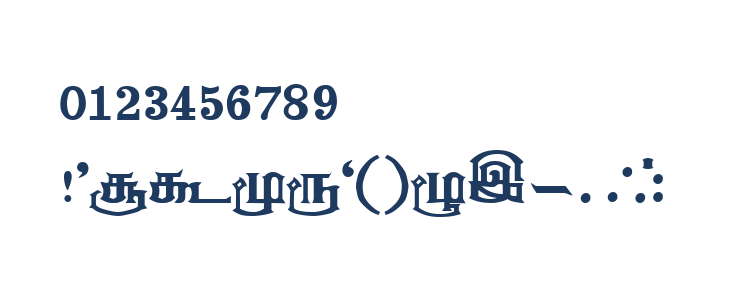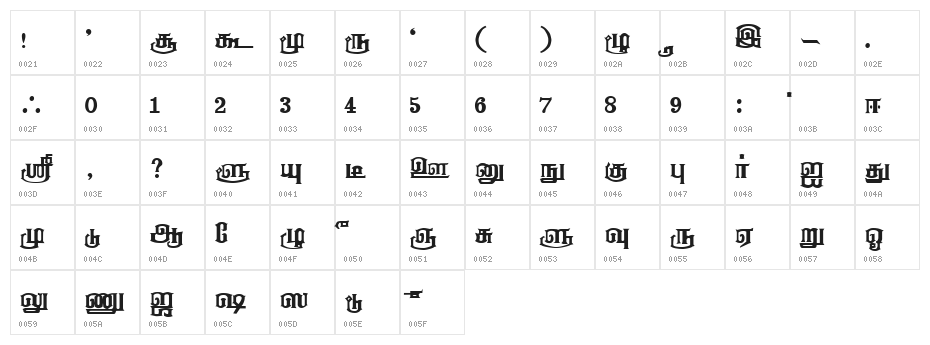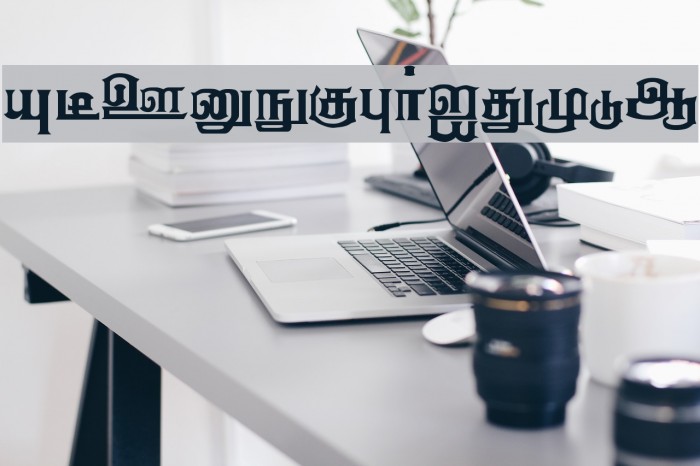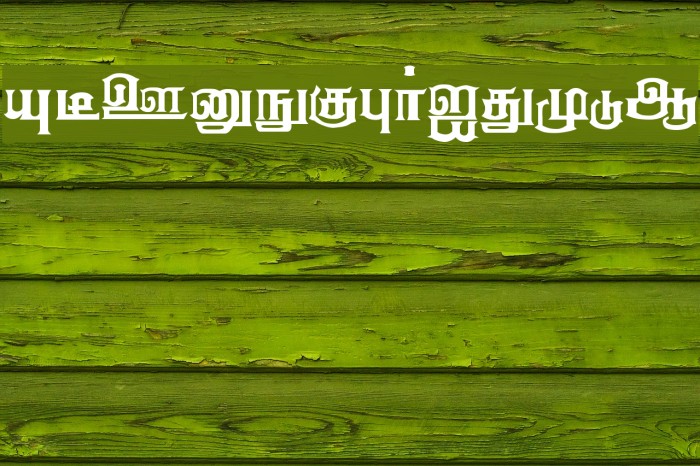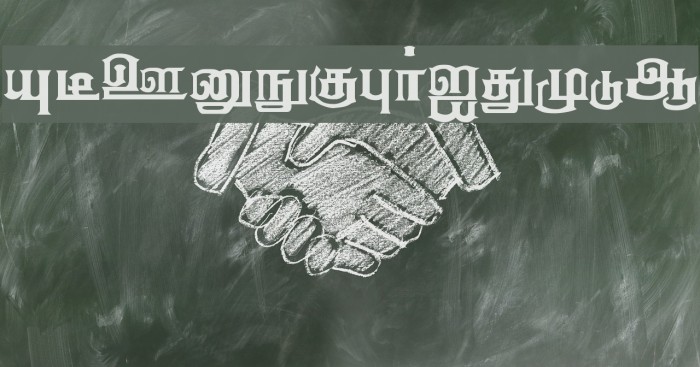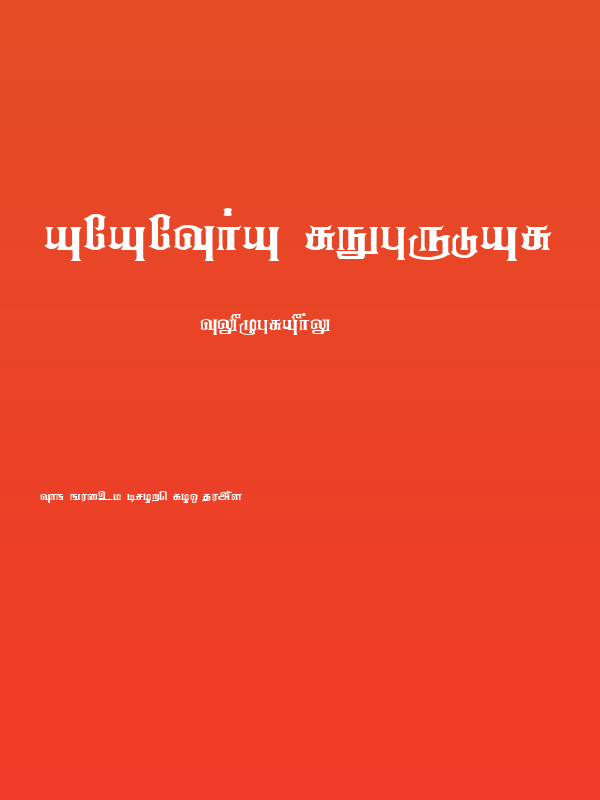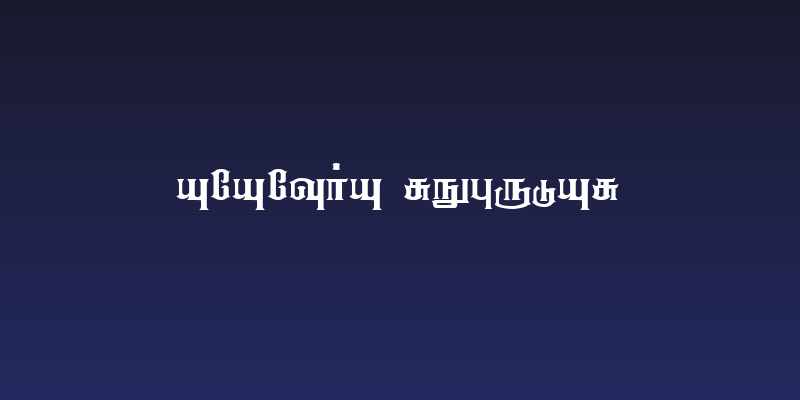
Anantha Regular Font
Anantha Regular Description
This font features a traditional and ornate design, characterized by its intricate detailing and decorative elements. The script is bold and prominent, with a strong presence that commands attention. The characters are well-defined, with sharp edges and a consistent stroke weight that adds to its readability. The numerals are equally bold, maintaining the same level of detail and clarity as the alphabetic characters. Special characters are included, each designed with the same attention to detail, making them stand out while remaining cohesive with the overall style. This font is suitable for projects that require a touch of elegance and tradition.
| Overall Style | Traditional |
| Use Case | Headlines, Logos, Decorative text |
| Proposed Projects | Ideal for cultural publications, formal invitations, and decorative signage. |